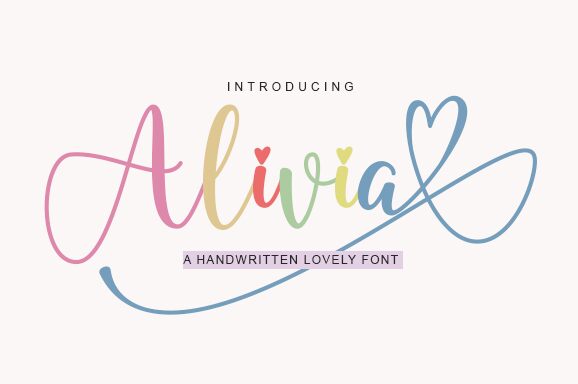
Alivia, a beautiful calligraphy font by Danar Nugroho, exudes elegance with its semi-light weight and charming style.
Its delicate curves and graceful strokes make it perfect for wedding invitations, love letters, and romantic projects. Alivia adds a touch of sophistication to feminine branding materials like fashion magazines, beauty blogs, or boutique logos. With its cute and enchanting design, this font also works well for children's book covers, playful greeting cards, or whimsical illustrations.